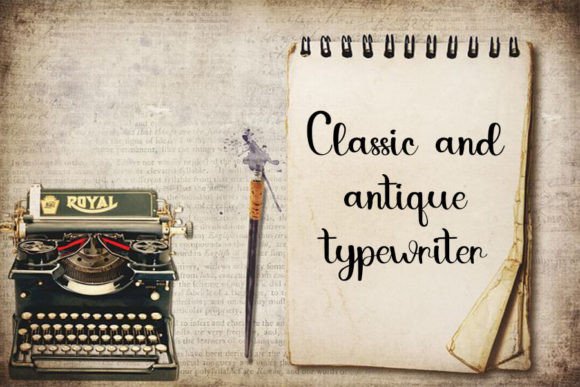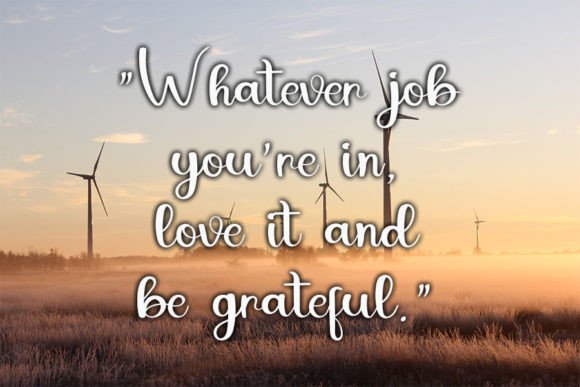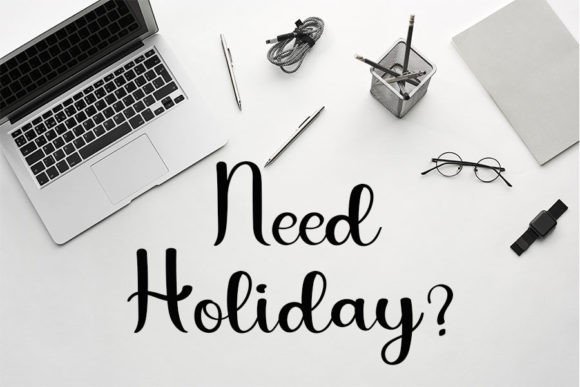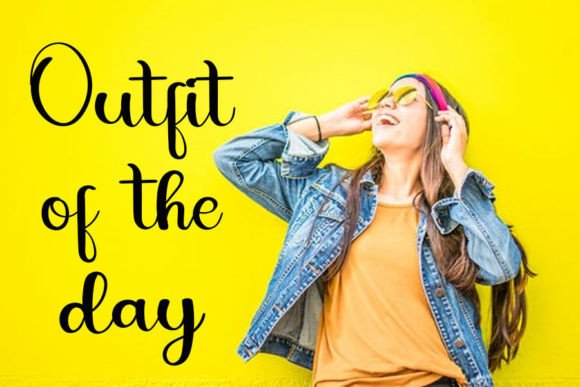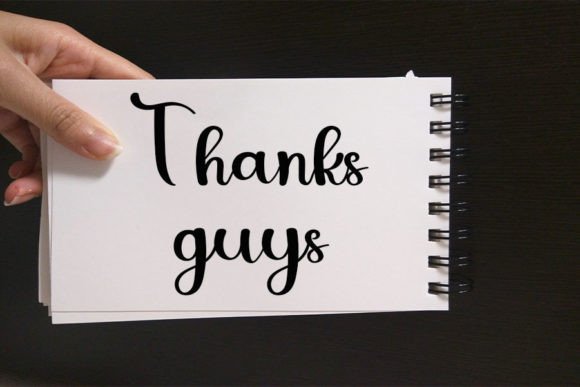
Biscuits Font: The Ultimate Choice for Creative Projects
Are you a designer, crafter, or DIY enthusiast looking for a font that can add a personal touch to your creative projects? Look no further than the Biscuits font! This adorable handwritten font is perfect for anyone who wants to infuse their work with a friendly and approachable feel. In this article, we’ll dive into the world of Biscuits font, exploring its features, uses, and benefits for designers and crafters alike.
What is Biscuits Font?
Biscuits is a cute and casual handwritten font that boasts an incredibly friendly feel. Its unique charm makes it an excellent choice for a wide range of creative projects, from social media graphics and Instagram posts to calligraphy scripts and DIY crafts. With Biscuits font, you can turn any idea into a true piece of art!
Key Features of Biscuits Font
- Cute and Casual: Biscuits font is designed to be playful and informal, making it perfect for projects that require a personal touch.
- Handwritten Style: The font’s handwritten style gives it a unique, human feel that’s perfect for adding a touch of warmth to your designs.
- Friendly Feel: The Biscuits font exudes a sense of friendliness, making it ideal for projects that aim to connect with the audience on a personal level.
- Versatile: Whether you’re working on a digital project or a physical craft, Biscuits font can be used in a variety of applications.
Uses of Biscuits Font
So, what can you use Biscuits font for? The possibilities are endless! Here are some ideas to get you started:
- Instagram Graphics: Add a personal touch to your Instagram posts and stories with Biscuits font.
- DIY Projects: Use Biscuits font to create beautiful calligraphy scripts for your DIY projects, such as handmade cards, gift tags, and more.
- Crafting: Biscuits font is perfect for crafters who want to add a touch of personality to their projects, from scrapbooking to journaling.
- Branding: Use Biscuits font to create a friendly and approachable brand identity for your business or personal brand.
Benefits of Using Biscuits Font
So, why choose Biscuits font for your creative projects? Here are some benefits to consider:
- Easily Readable: Biscuits font is clear and easy to read, making it perfect for digital and print applications.
- Unique Style: The Biscuits font has a unique style that sets it apart from other fonts, ensuring your projects stand out from the crowd.
- Time-Saving: With Biscuits font, you can create beautiful, professional-looking projects in no time, saving you time and effort.
- Customizable: Biscuits font can be customized to fit your project’s specific needs, allowing you to experiment with different styles and effects.
Tips for Using Biscuits Font
To get the most out of Biscuits font, here are some tips to keep in mind:
- Experiment with Colors: Play around with different colors to find the perfect combination that matches your project’s theme.
- Mix and Match: Combine Biscuits font with other fonts or graphics to create a unique and visually appealing design.
- Keep it Simple: Don’t overcomplicate your design – keep it simple and let Biscuits font do the talking.